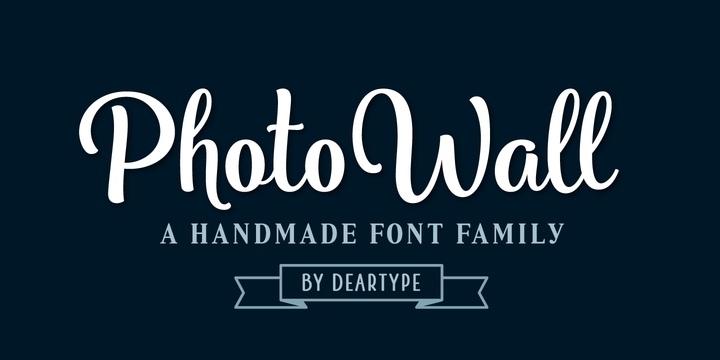
PhotoWall Font
PhotoWall Font is ideal for photography studio branding, visual portfolio designs, gallery exhibition graphics, creative agency headers, artistic poster layouts, photography workshop materials, visual storytelling projects, and contemporary art installations.
This exciting PhotoWall Font captures the essence of visual storytelling with its distinctive letterforms that mirror the dynamic energy of curated photo collections and artistic displays. The font's visual narrative quality and contemporary aesthetic make it an exceptional choice for projects requiring creative expression, artistic sophistication, and professional photography presentation that resonates with visual arts communities.
The PhotoWall Font family features multiple artistic interpretations including Regular, Display, Condensed, Extended, Light, and Bold versions, providing designers with comprehensive flexibility for creating visually compelling and professionally polished photography-themed brand communications.
Transform visual storytelling with PhotoWall Font Free Download - a creatively designed typeface that embodies the artistry and professional standards of contemporary photography. This versatile font seamlessly combines artistic expression with functional readability, making it perfect for photographers, visual artists, and creative professionals who need to communicate artistic vision and professional expertise.
The artistic character of PhotoWall Font makes it particularly valuable for photography studios, creative agencies, art galleries, visual content creators, and media companies that need to establish creative credibility while maintaining professional appeal. Its contemporary styling resonates with audiences who appreciate visual artistry and creative excellence.
Professional photographers choose PhotoWall Font for its exceptional visual impact and authentic artistic resonance across print and digital applications. The font maintains its creative character from small watermark applications to large exhibition displays, ensuring consistent artistic branding and professional recognition throughout all visual communications.
The versatile functionality of PhotoWall Font supports comprehensive creative brand systems and extensive portfolio applications. Its balanced artistic qualities work effectively for everything from business cards to large-format gallery installations, providing visual professionals with reliable typographic foundation for diverse artistic presentations.
Creative industry professionals utilize PhotoWall Font to establish distinctive identities that communicate artistic excellence, creative vision, and professional quality in competitive visual markets. The typeface's contemporary sophistication helps photographers and visual artists differentiate their work while appealing to clients who value creativity, professionalism, and exceptional visual storytelling capabilities.